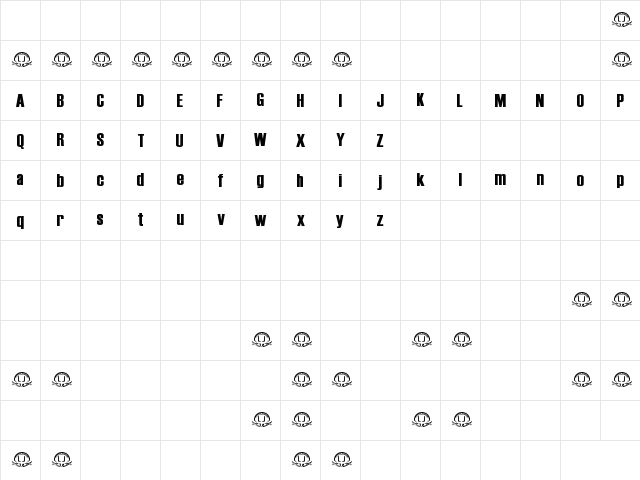
Instinto Bold
| Foundry | LJ-Design Studios |
| Designer | Luis Jaramillo |
Design Context for Instinto Typeface
Instinto is a composed and adaptable typeface that performs quietly and consistently across a wide range of design contexts. Its bold stroke weight gives it real presence on the page.